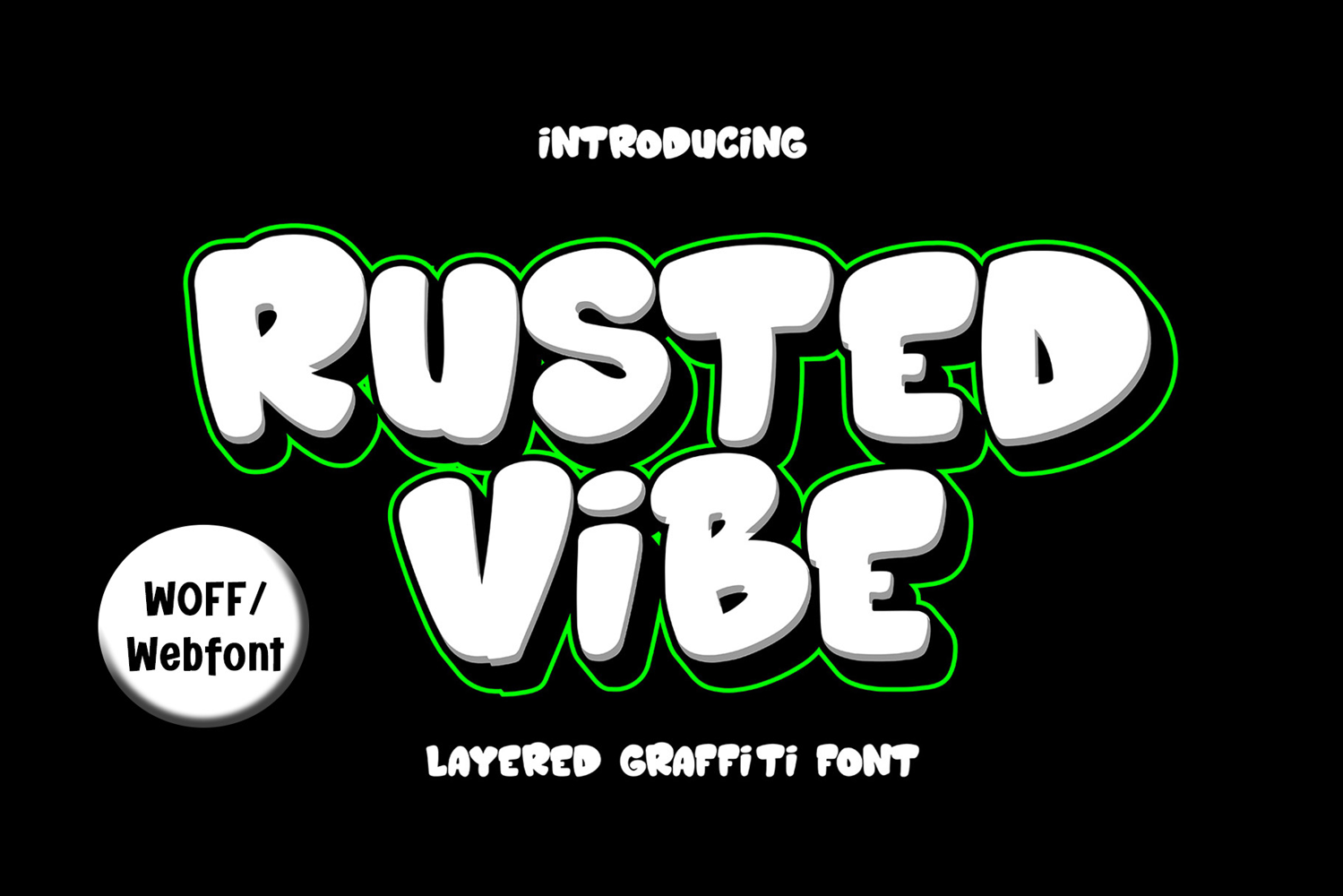
Rusted Vibe | Layered Graffiti Webfont
Rusted Vibe is a layered graffiti webfont that brings bubble-style graffiti into the digital space. Featuring bold rounded forms and a unique layered system, this font lets you create eye-catching effects with outlines, shadows, and highlights directly on your website. It’s perfect for youth culture brands, hip-hop blogs, gaming sites, fashion e-commerce, or any project that needs a fun and urban graffiti aesthetic online. Rusted Vibe includes uppercase, lowercase, numerals, punctuation, multilingual support, and stylistic alternates for creative flexibility. Delivered in lightweight WOFF format, it ensures fast load speeds without compromising design quality. Bring your website to life with the playful and layered graffiti style of Rusted Vibe.